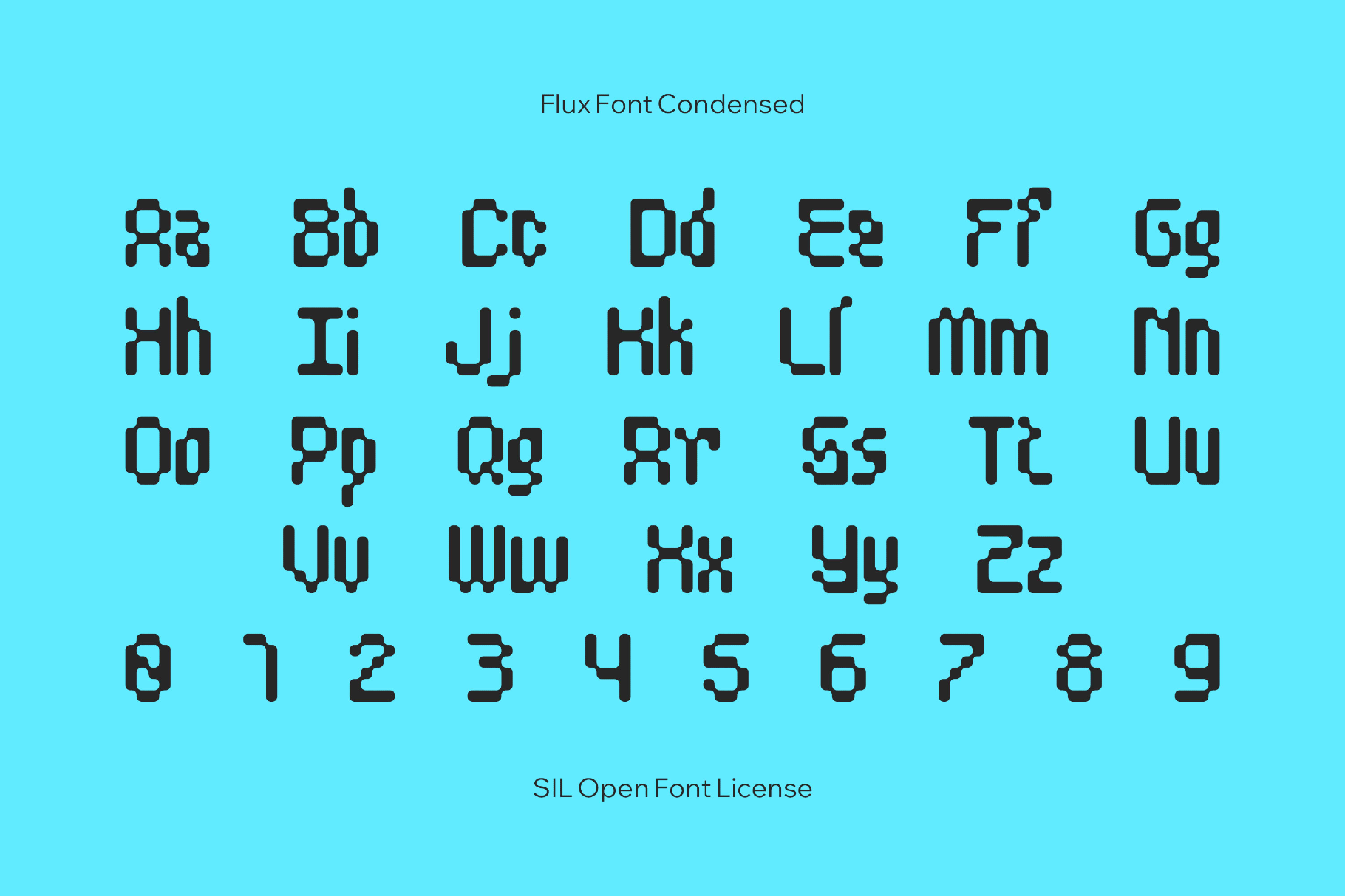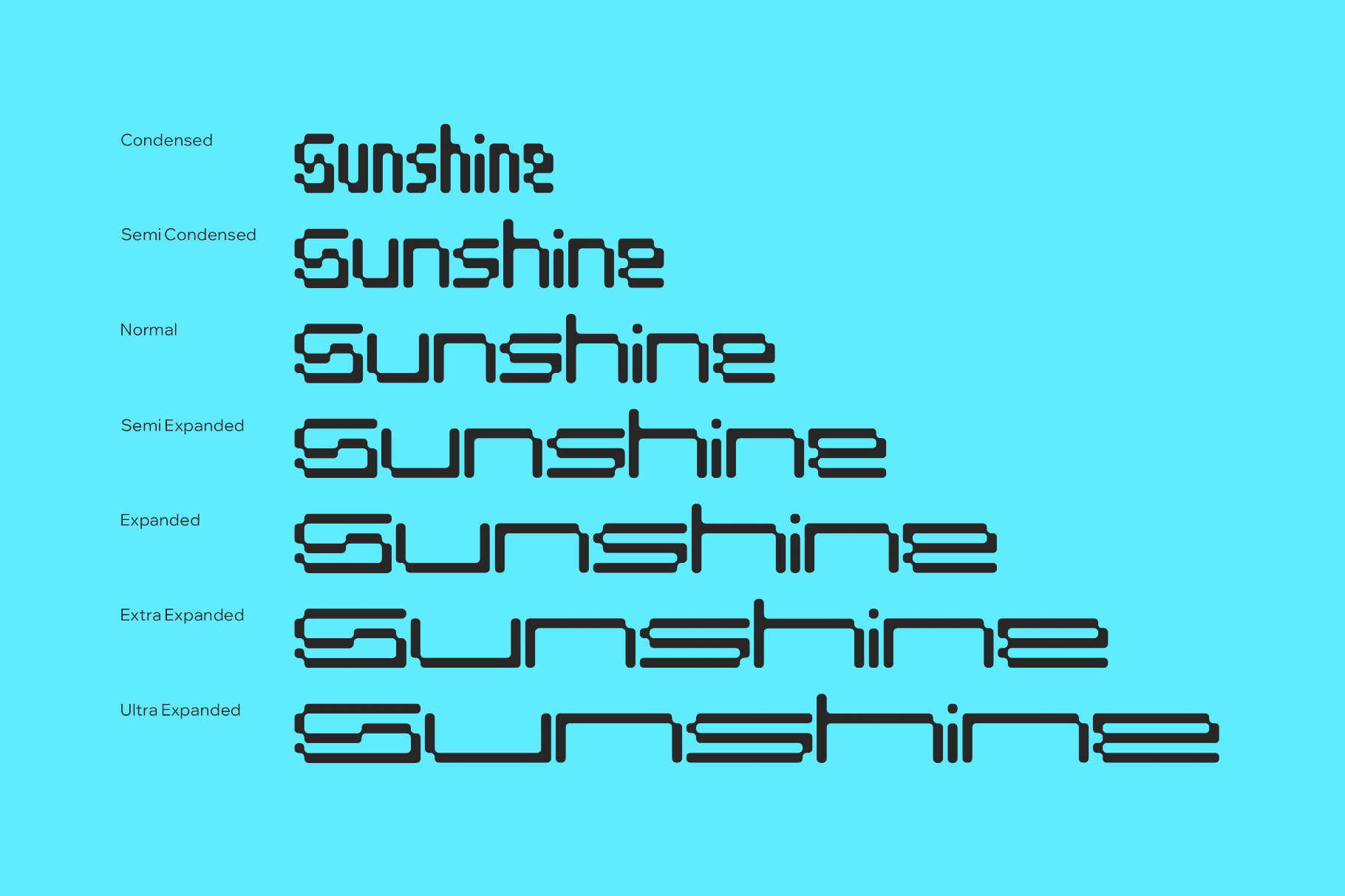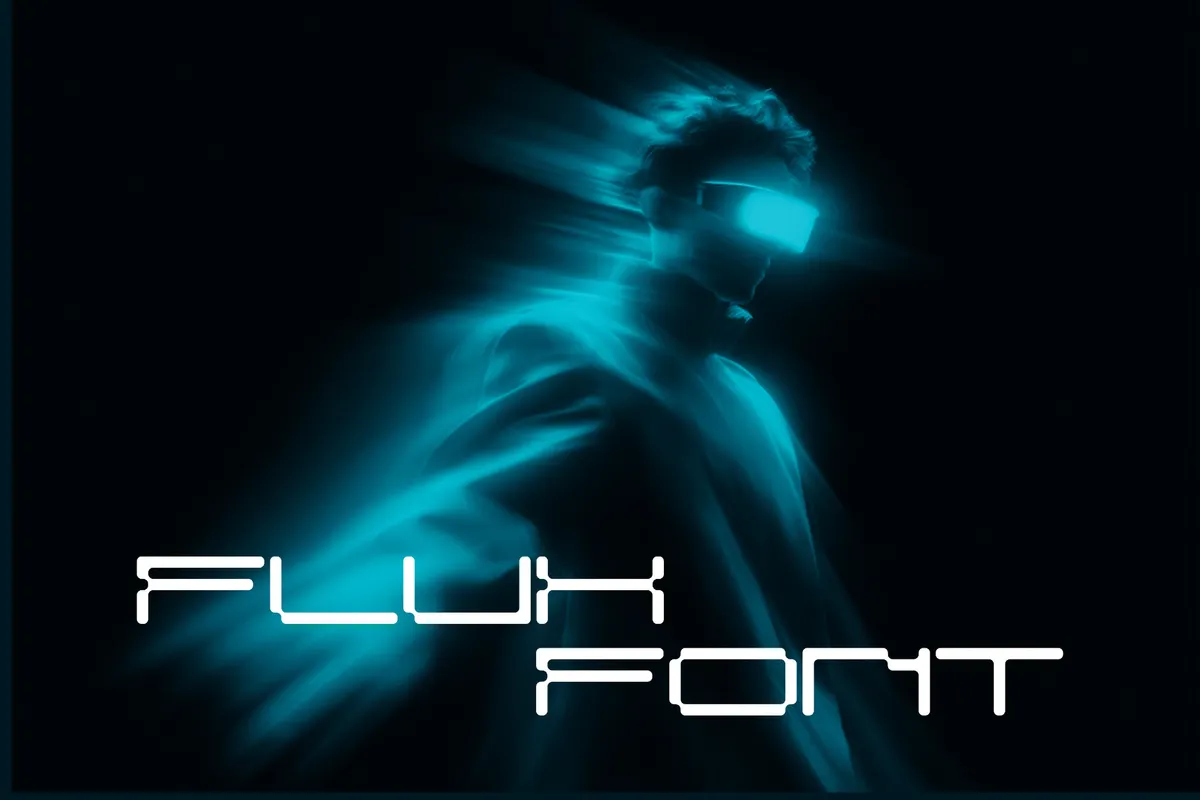
Flux Font
The sharp, kinetic font with stretched curves, retro grid geometry, and sci-fi angles makes texts at once technical and friendly. The letters on a pixel-like framework with vast proportions shine in futuristic poster headlines, HUD interfaces, launcher screens, app menus, club flyers, album art, esports branding, editorial covers, motion titles, and bold social campaigns.